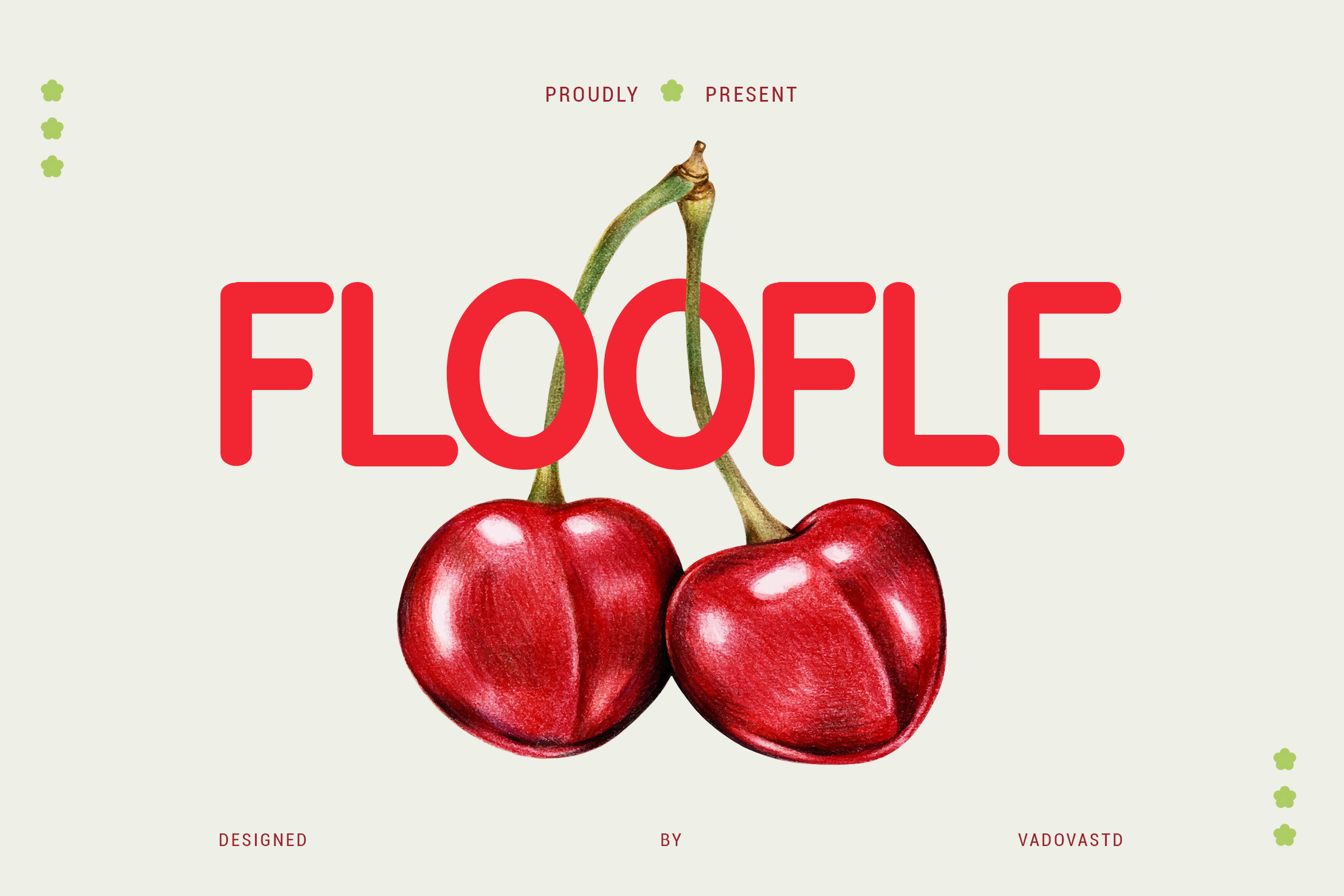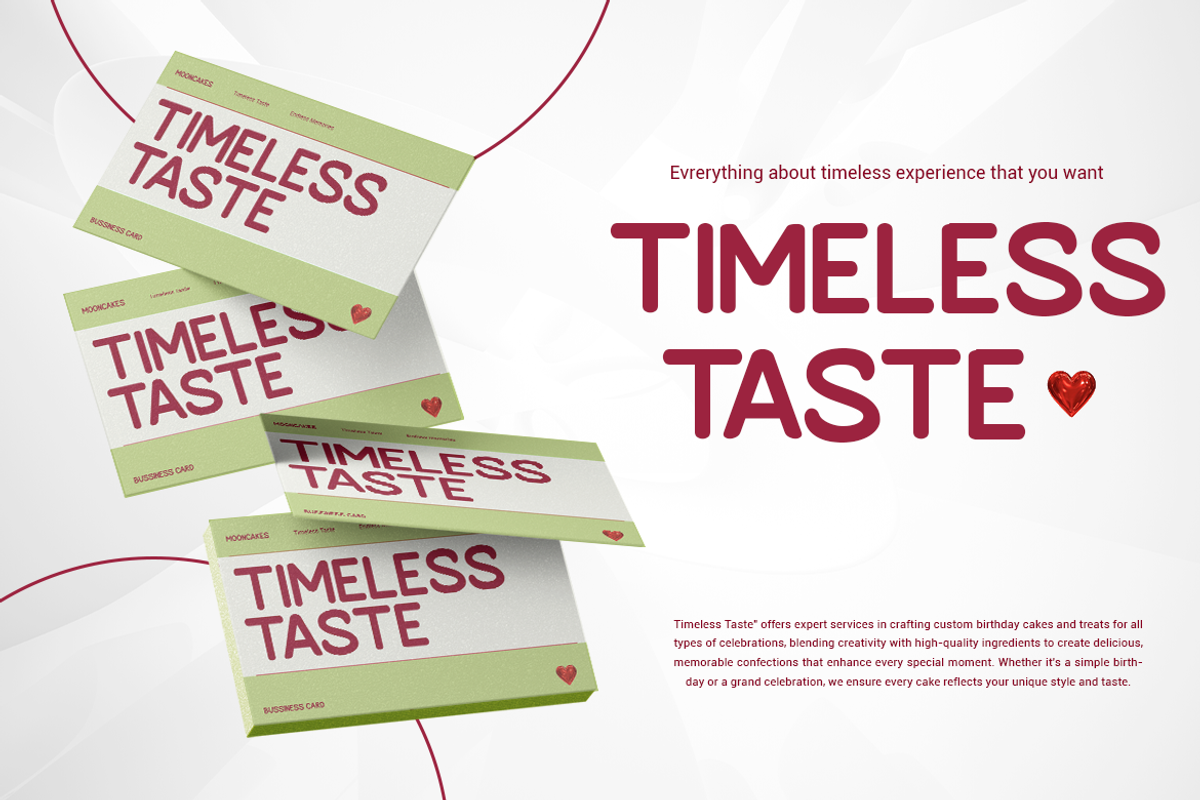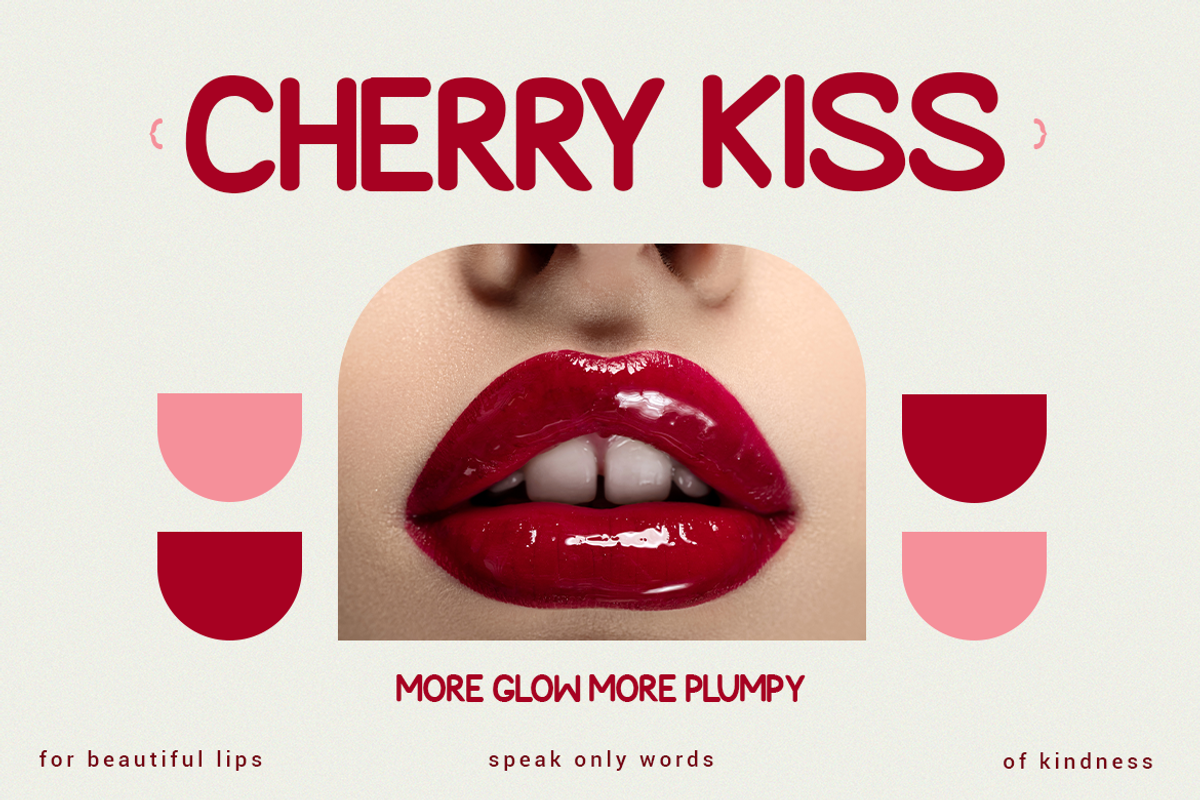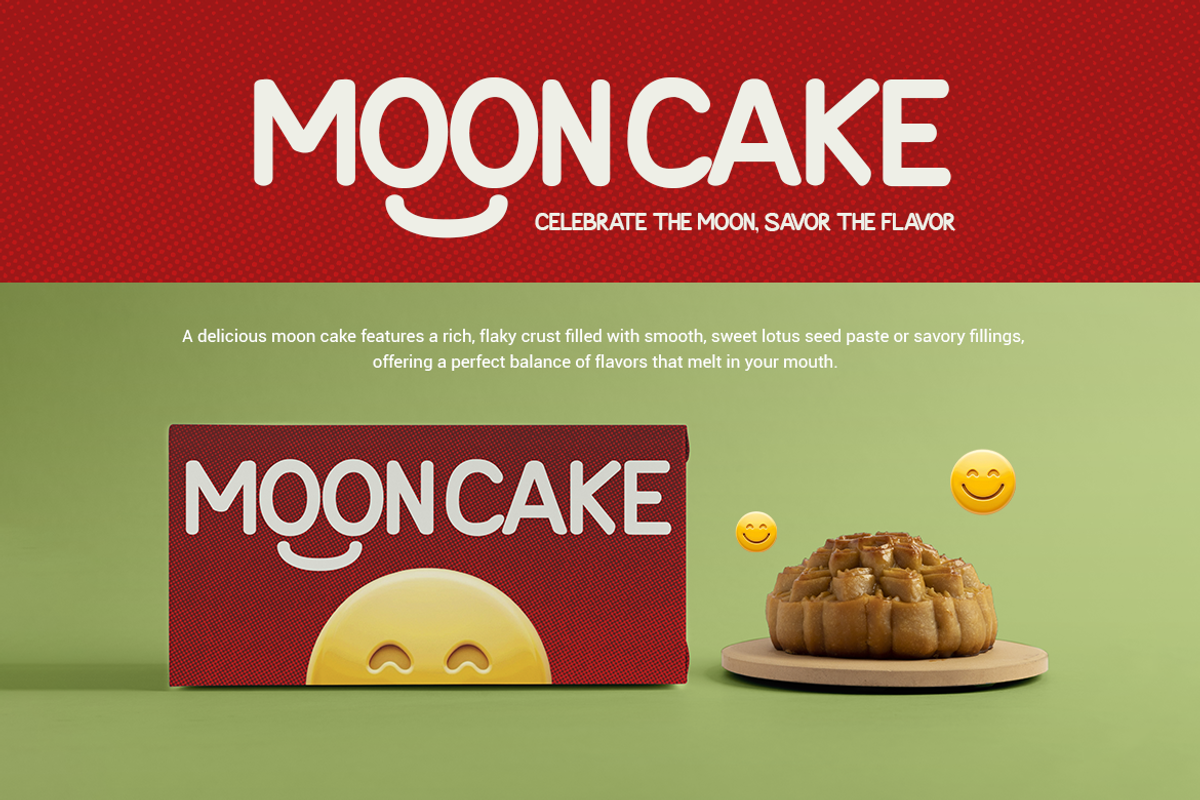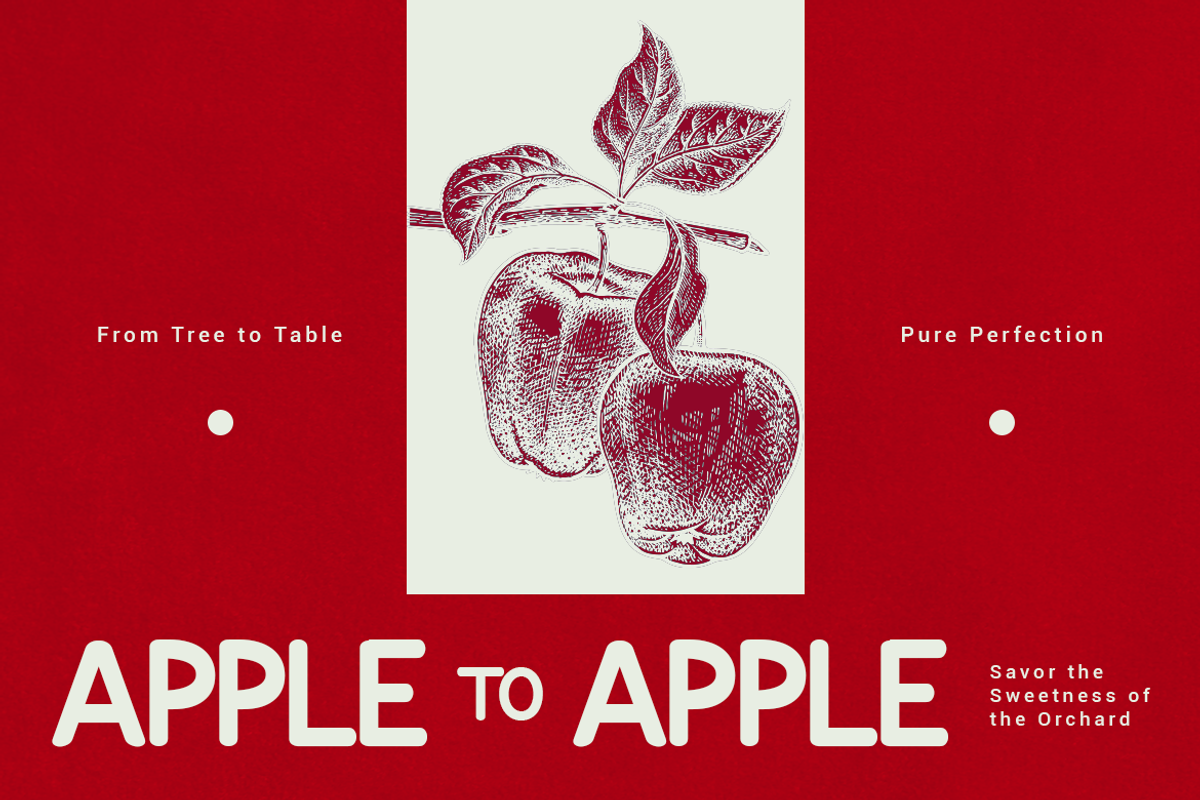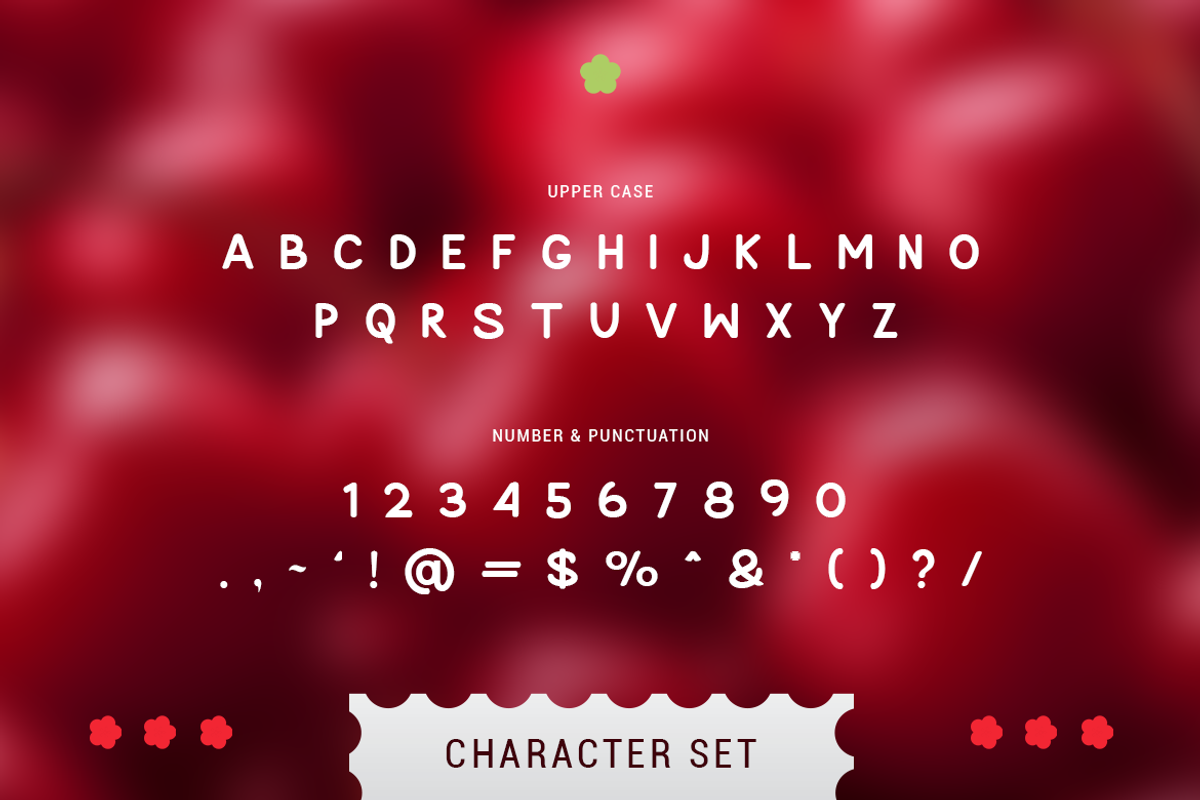
Floofe Sans Serif Font
Floofle is a playful and rounded display font designed to bring joy, sweetness, and a friendly personality to your designs. Featuring soft curves, smooth strokes, and charming proportions, this font is perfect for eye-catching headlines and fun branding. Floofle includes uppercase characters, numbers, and basic punctuation, making it easy to use for both digital and print projects.
Floofle is designed for playful and expressive visual projects where personality matters. Its rounded shapes and friendly appearance make it ideal for branding, posters, packaging, and digital content that aim to feel warm, fun, and approachable. This font works best for display purposes such as titles, logos, and short phrases rather than long body text.
- Playful rounded letterforms with soft, bubbly proportions
- Smooth curves and thick strokes for a friendly, eye-catching appearance
- Consistent stroke weight that creates a bold and cheerful visual rhythm
- Open shapes and generous spacing for clear readability in headlines
- Designed specifically for display use, emphasizing fun, warmth, and personality
- Playful brand identities and cheerful logo designs
- Posters, flyers, and headlines that need a fun tone
- Product packaging for kids, beauty, or lifestyle brands
- Social media graphics with bold, friendly typography
- Creative marketing materials and personal projects
Floofle and make every message feel bold, fun, and full of personality